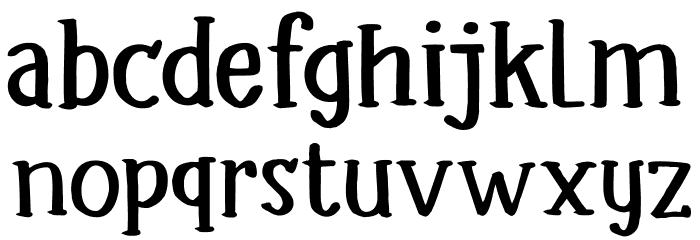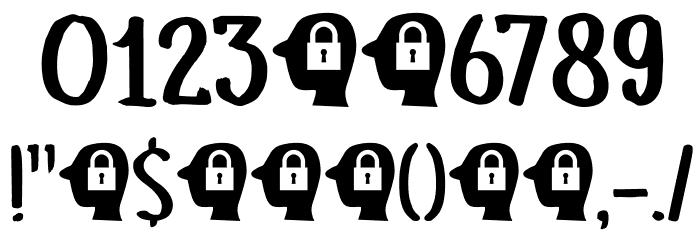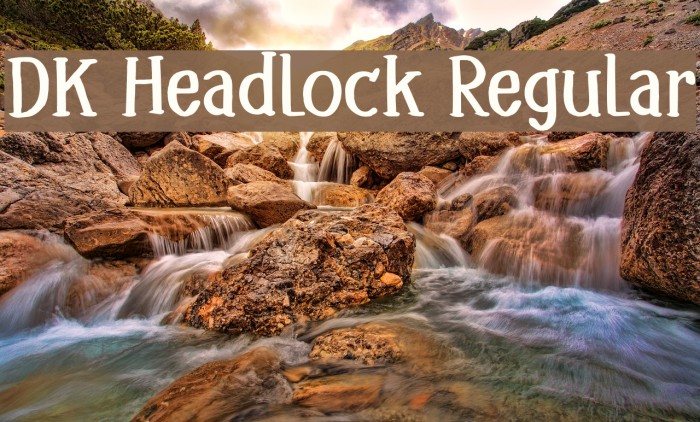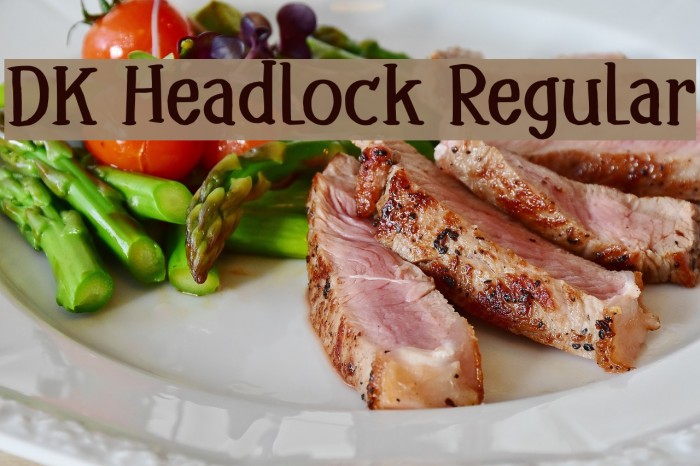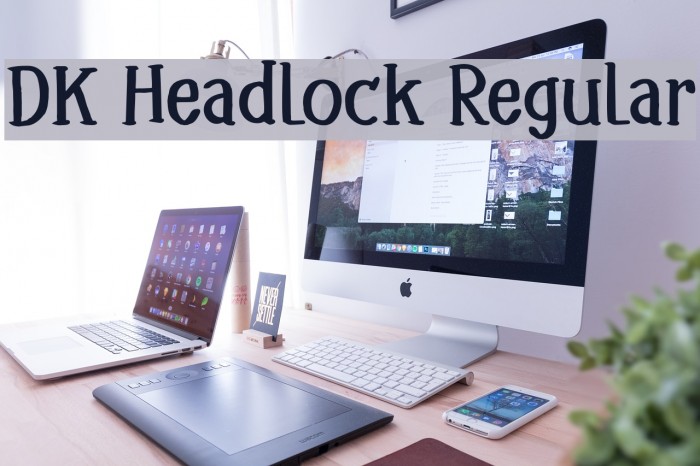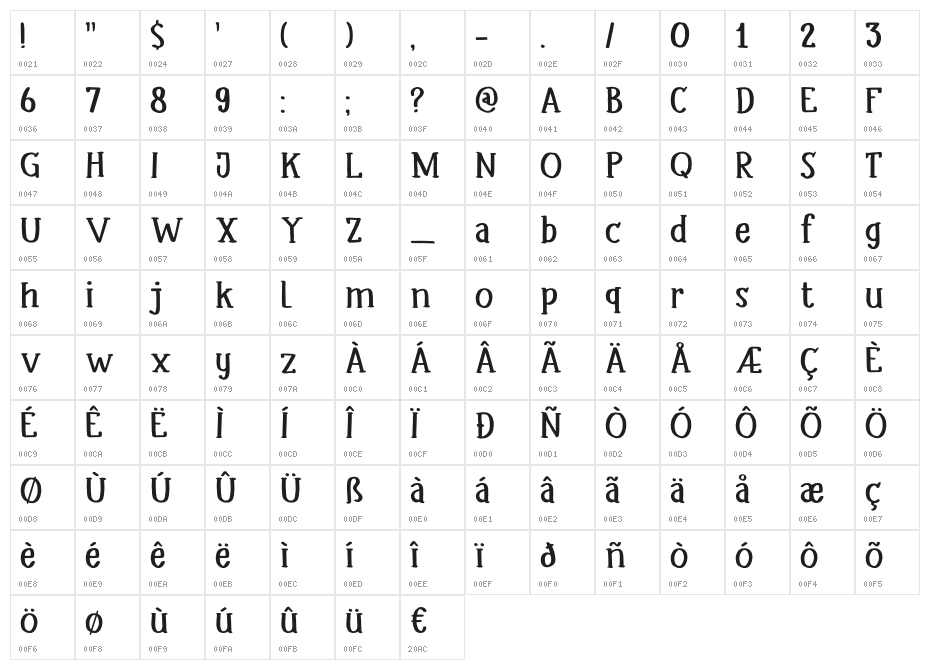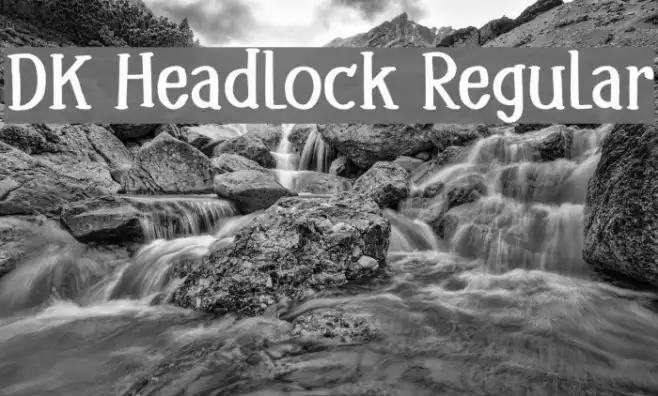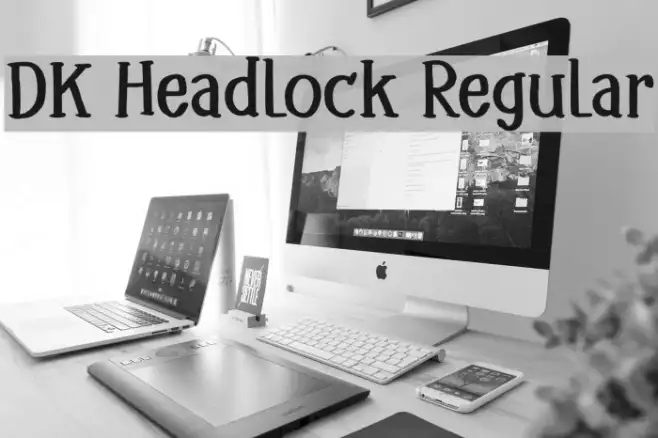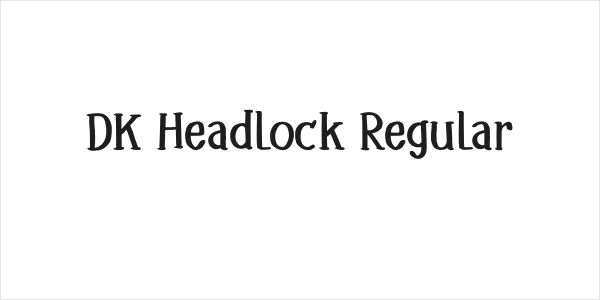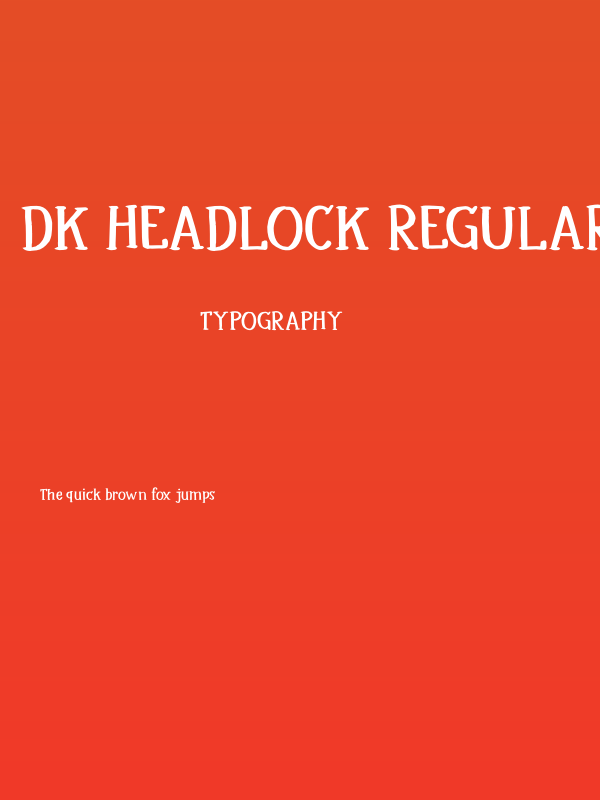
DK Headlock Regular Font
This font features a playful and quirky style with a hand-drawn appearance. The characters are slightly irregular, giving them a unique and informal look. The uppercase letters are bold and prominent, while the lowercase letters maintain a consistent flow with a slight tilt, adding to the casual aesthetic. The numbers are distinct and match the overall style, with some characters incorporating creative elements like lock symbols. The special characters are well-integrated, maintaining the font's whimsical theme. This font is ideal for projects that require a fun and approachable vibe.
A playful, hand-drawn font with a quirky and informal style.
- Proposed Projects: Perfect for children's books, playful branding, casual invitations, and creative posters.